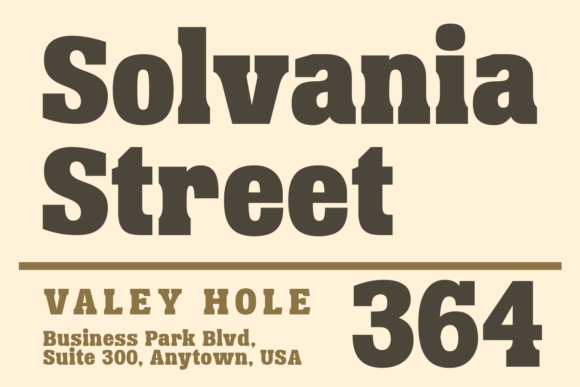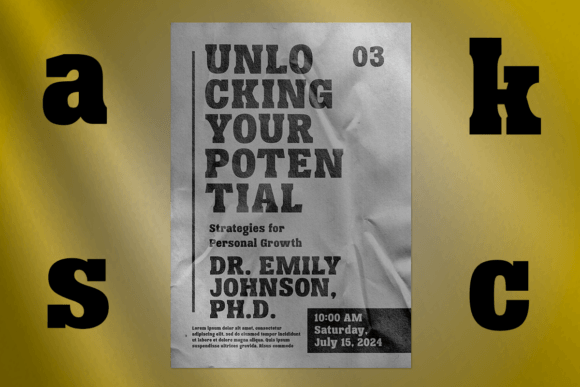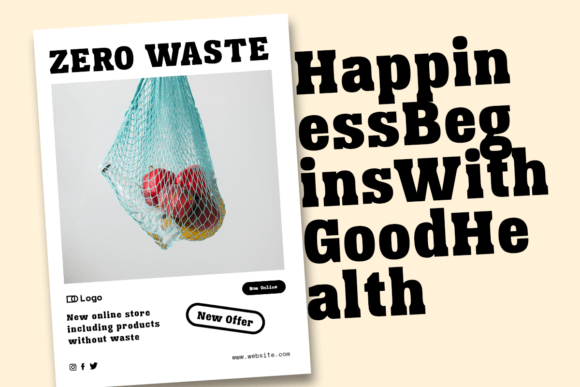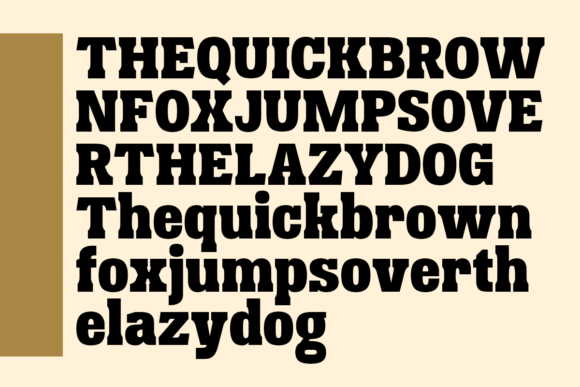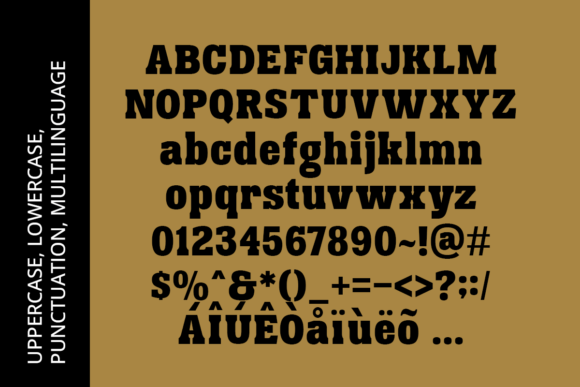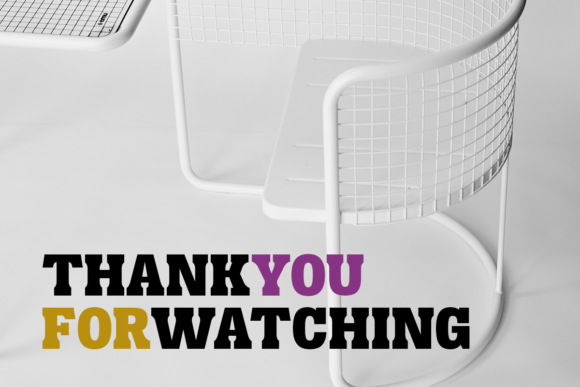
Introducing Betones Serif Bold Font: Make a Bold Statement with Elegance and Authority
In the world of typography, a well-chosen font can make all the difference in creating a lasting impression. For designers and crafters seeking a typeface that exudes confidence and sophistication, Betones Serif Bold Font is an exceptional choice. This powerful and commanding font is designed to make a strong impact, blending classic serif elegance with modern design elements.
The Power of Betones Serif Bold Font
Betones Serif Bold Font is not just a typeface; it’s a statement. With its bold and confident strokes, this font is perfect for headlines, posters, logos, and branding projects that require a bold and assertive look. The classic serif elegance of Betones ensures that your text stands out with authority and style, making it ideal for designers seeking a sophisticated yet commanding presence.
Key Features of Betones Serif Bold Font
- Bold and Confident Strokes: The bold strokes of Betones Serif Bold Font ensure that your text grabs attention and makes a lasting impression.
- Classic Serif Elegance: The font’s classic serif design adds a touch of sophistication and elegance to your text, making it perfect for high-end branding and design projects.
- Modern Design Elements: Betones Serif Bold Font seamlessly blends traditional serif elements with modern design, ensuring that your text looks contemporary and fresh.
- PUA Encoded: This font is PUA encoded, which means you can access all of the cute glyphs and swashes with ease, giving you greater creative flexibility.
Applications of Betones Serif Bold Font
Betones Serif Bold Font is incredibly versatile and can be used in a variety of design projects, including:
- Headlines and Posters: The bold and commanding presence of Betones Serif Bold Font makes it perfect for headlines and posters that require attention-grabbing typography.
- Logos and Branding: The font’s classic serif elegance and modern design elements make it an excellent choice for logos and branding projects that require a sophisticated yet assertive look.
- Print and Digital Formats: Whether you’re designing for print or digital formats, Betones Serif Bold Font delivers a striking and memorable visual presence.
Why Choose Betones Serif Bold Font?
For designers and crafters seeking a typeface that makes a bold statement, Betones Serif Bold Font is an exceptional choice. Here are just a few reasons why:
- Unique and Memorable: The bold and confident strokes of Betones Serif Bold Font ensure that your text stands out and leaves a lasting impression.
- Versatile: The font’s classic serif elegance and modern design elements make it suitable for a wide range of design projects.
- Ease of Use: Betones Serif Bold Font is PUA encoded, making it easy to access all of the font’s features and glyphs.
Betones Serif Bold Font is a powerful and commanding typeface that is sure to make a strong impact in your design projects. With its bold and confident strokes, classic serif elegance, and modern design elements, this font is perfect for designers seeking a sophisticated yet assertive look. Whether you’re working on headlines, posters, logos, or branding projects, Betones Serif Bold Font delivers a striking and memorable visual presence. So why settle for ordinary typography when you can make a bold statement with Betones Serif Bold Font?